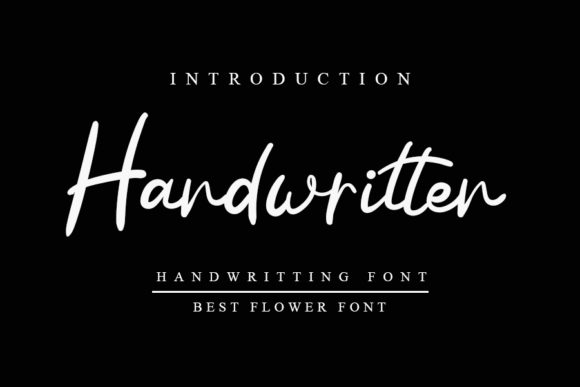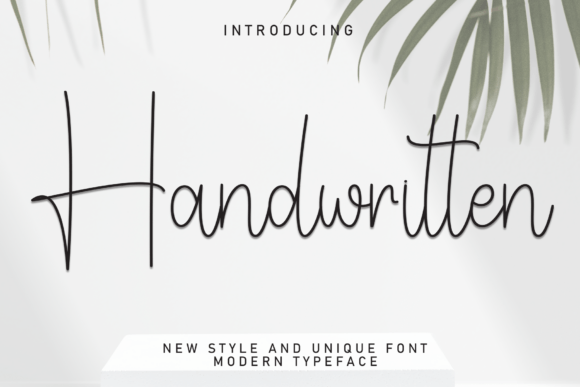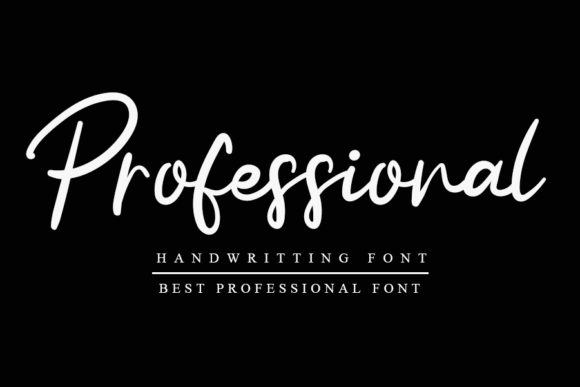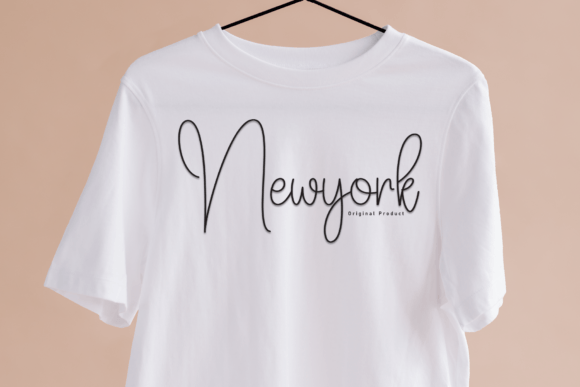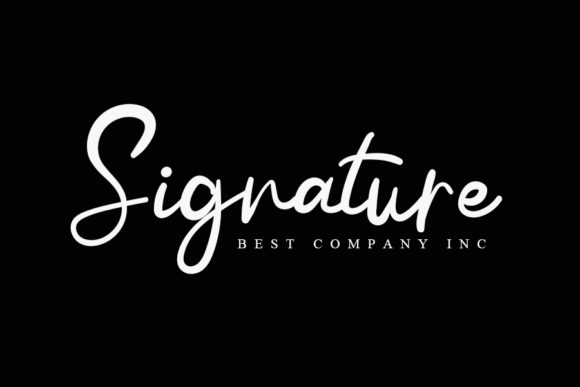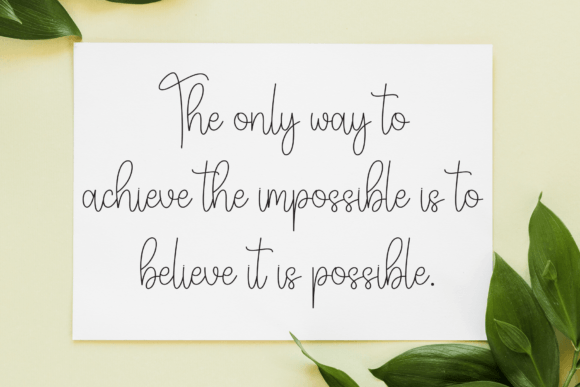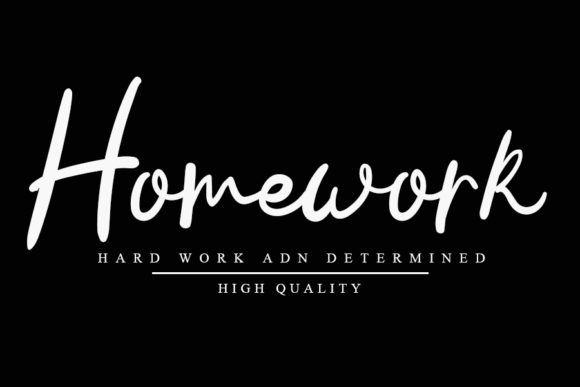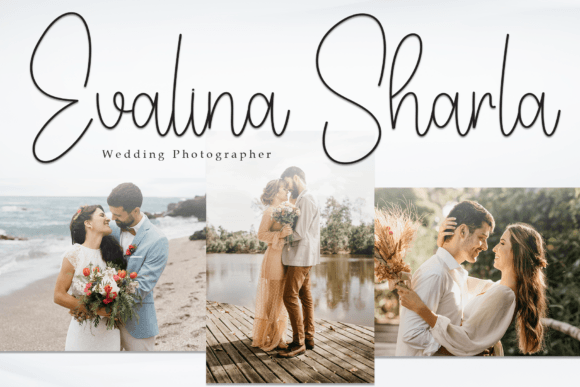
Handwritten Font
About the Handwritten Font
Discover the charm of Handwritten Font. This font is a perfect blend of modern aesthetics and classic appeal. A handwritten font is a type of script font that looks like natural handwriting. It has smooth, flowing letters, often with a personal and casual feel, like someone wrote it with a pen or brush. These fonts are great for adding a creative or friendly touch to designs.
This font excels in projects requiring a personal touch, such as wedding invitations, greeting cards, or social media graphics. Its casual nature makes it ideal for branding focused on craft businesses, artisanal products, or small boutiques. However, avoid using it for large blocks of text or UI elements; its low readability makes it unsuitable for body copy or website navigation.
Pairing it with a clean sans-serif like Open Sans for body text creates a strong contrast, balancing the handwritten informality with clear, legible information. For a more elegant feel, consider pairing it with a classic serif such as Garamond or a delicate script font for a cohesive, luxurious aesthetic.
Its core personality is friendly and approachable, conveying warmth and authenticity. It’s best suited for brands projecting a handmade, personal, or creatively driven image.
Handwritten Font Example